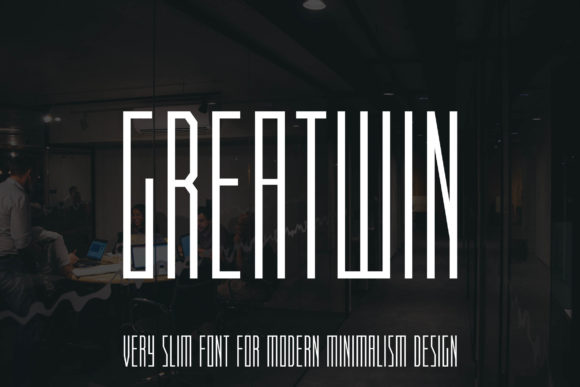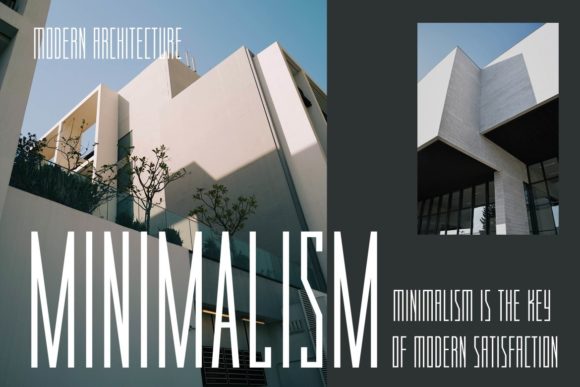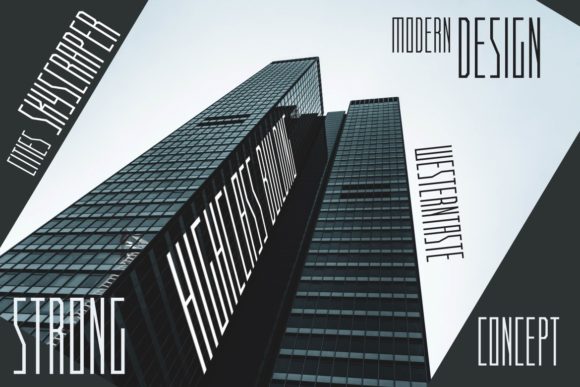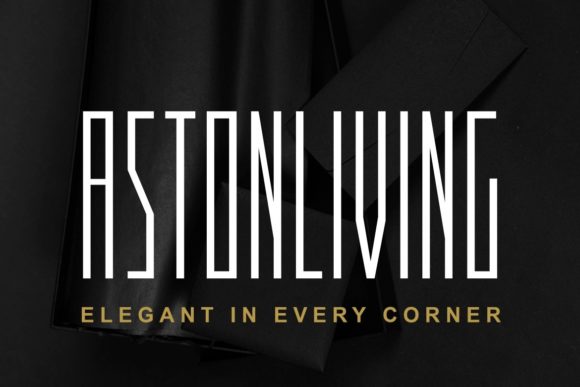
Greatwin Font: Modern Minimalist Sans Serif for Logo Design
About the Greatwin Font
Presenting Greatwin Font, a unique and stylish typeface that will make your work stand out. Greatwin is a cool, robotic and neat sans serif font. No matter the topic, this font will be an incredible asset to your fonts’ library, as it has the potential to elevate any creation.
Greatwin’s strong geometric forms make it ideal for headlines, logos, and short, impactful text on posters or packaging. Its clean, robotic aesthetic lends itself well to technology-related projects or brands emphasizing innovation and precision. However, its condensed nature and lack of x-height variation make it less suitable for body text or UI elements requiring high readability over longer passages.
Pairing Greatwin effectively depends on the desired outcome. For a bold, modern feel, consider pairing it with a minimalist serif like Garamond or a geometric sans-serif such as Futura. To soften its robotic edge, a slightly rounded sans-serif like Lato or a script font with a clean, modern feel could work well, adding a touch of elegance or playfulness, respectively.
Greatwin projects a confident, modern, and slightly serious personality. It’s best suited for brands seeking a clean, impactful visual identity that communicates technological prowess, precision, or a sense of futuristic sophistication.
Greatwin Font Usage Examples
Greatwin Font Example